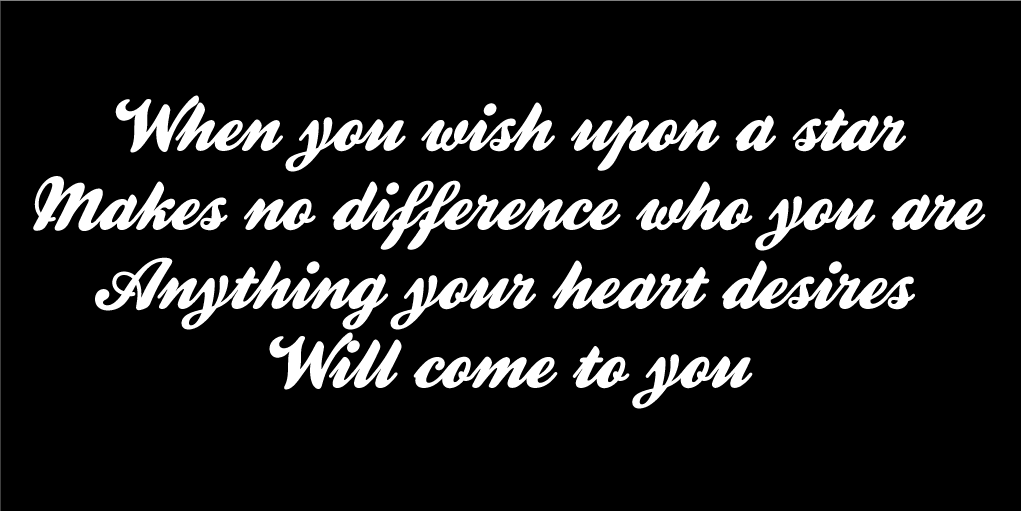
Kestrel Script is a brush script font published by Alan Meeks Collection.
Originally designed in 1985 and released by Letraset for dry transfer Lettering, Kestrel has, until now, never been digitized. The face now has been completely re-drawn and digitized for all formats. It is a heavy formal script similar in form to Commercial Script.
Kestrel Script